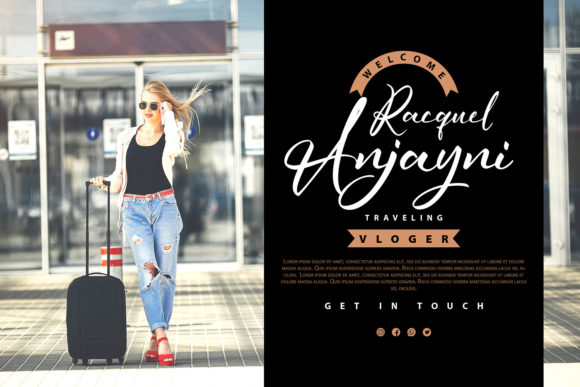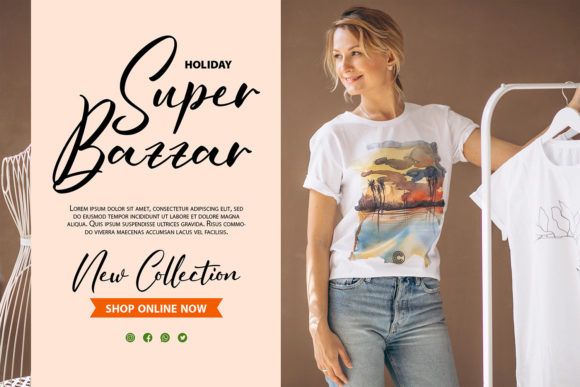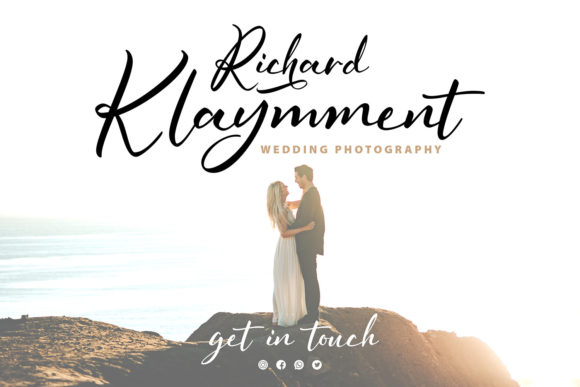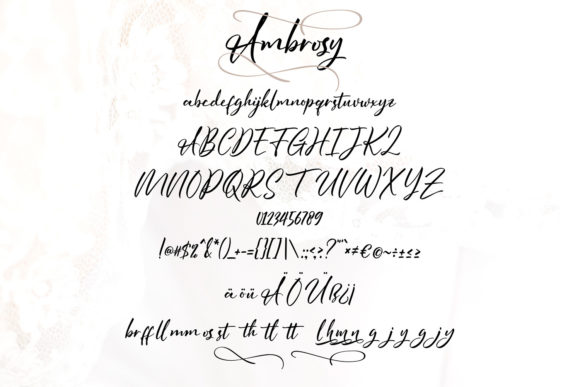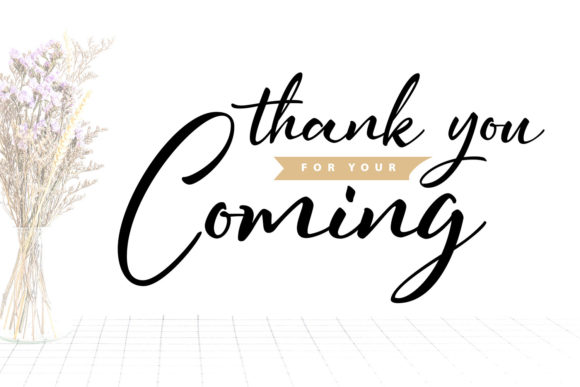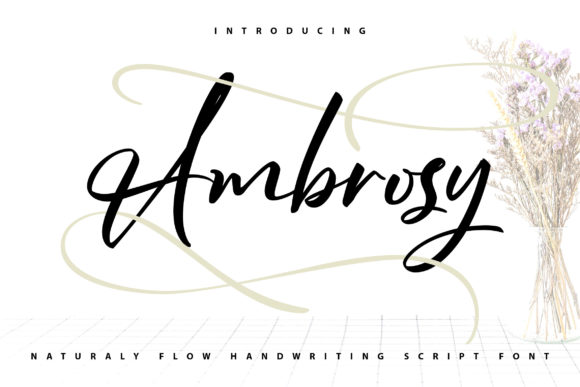
Introducing Ambrossy Font: The Epitome of Chic and Trendy Typography
In the realm of typography, few fonts manage to strike a balance between elegance and playfulness. Ambrossy Font is one such gem that effortlessly exudes confidence and versatility, making it an ideal choice for designers and crafters alike. This stylish script font is designed to elevate your projects with its unique alternates and ligatures, ensuring that your work stands out in a crowd.
The Making of Ambrossy: A Masterclass in Typography
Ambrossy Font is the brainchild of meticulous designers who aimed to create a typeface that would seamlessly blend into various design contexts. Whether you’re working on a branding project, a wedding invitation, or a fashion magazine, Ambrossy is engineered to adapt and impress. Its chic and trendy vibe is not just a superficial appeal; it’s deeply ingrained in the font’s structure, making it a versatile tool for any creative endeavor.
Key Features of Ambrossy Font
• Stylish Alternates: Ambrossy comes equipped with a range of stylish alternates that allow you to customize your text. These alternates can be used to create a unique visual identity for your project, adding a touch of personality to your design.
• Ligatures: The font includes ligatures, which are special characters that combine two or more letters into one. This feature not only enhances readability but also adds a decorative element to your text, making it more engaging and visually appealing.
• Versatility: One of the standout features of Ambrossy is its versatility. It can be used in a variety of contexts, from digital platforms to print media. Whether you’re designing a logo, a brochure, or a website, Ambrossy can be easily integrated into your project.
Why Choose Ambrossy Font?
Choosing the right font for your project can be a daunting task, given the plethora of options available. However, Ambrossy Font stands out for several reasons:
• Unique Aesthetic: Ambrossy offers a unique aesthetic that is both modern and timeless. Its chic and trendy vibe ensures that your project looks contemporary and appealing.
• Ease of Use: Despite its sophisticated look, Ambrossy is incredibly easy to use. Designers can effortlessly integrate it into their projects, thanks to its compatibility with various design software.
• Support for Multiple Languages: Ambrossy Font supports multiple languages, making it a great choice for international projects. This feature is particularly beneficial for designers working on global campaigns or projects that require multilingual support.
Applications of Ambrossy Font
Ambrossy Font’s versatility makes it suitable for a wide range of applications. Here are some of the most popular uses:
• Branding and Logo Design: Create memorable logos and brand identities with Ambrossy’s stylish and confident look.
• Wedding and Event Invitations: Add a touch of elegance and sophistication to your wedding or event invitations with Ambrossy.
• Fashion and Beauty: Ambrossy is a perfect match for fashion and beauty projects, including magazines, advertisements, and packaging.
• Digital Media: Use Ambrossy in digital media, such as website headers, social media graphics, and email newsletters, to create a cohesive and professional look.
Ambrossy Font is more than just a typeface; it’s a design statement. Its chic, trendy look, coupled with its versatility and range of features, makes it an invaluable asset for designers and crafters. Whether you’re looking to create a stunning brand identity, an elegant wedding invitation, or a captivating fashion magazine, Ambrossy is the perfect choice. Elevate your projects with Ambrossy Font and experience the difference it can make in your design work.
Ambrossy Font is a chic, trendy script font that emanates confidence and versatility. Its stylish alternates and ligatures make this font the perfect match for any project. With its wide range of applications and ease of use, Ambrossy is set to become a favorite among designers and crafters looking for a typeface that can keep up with their creative demands.